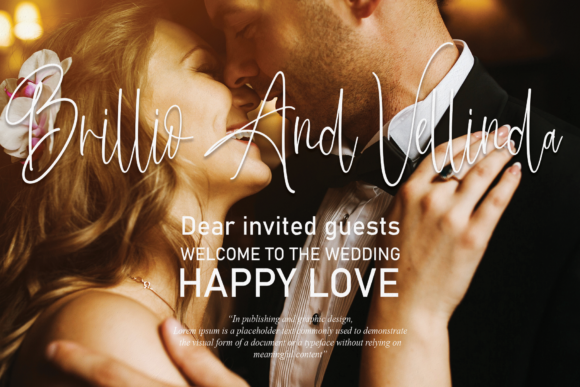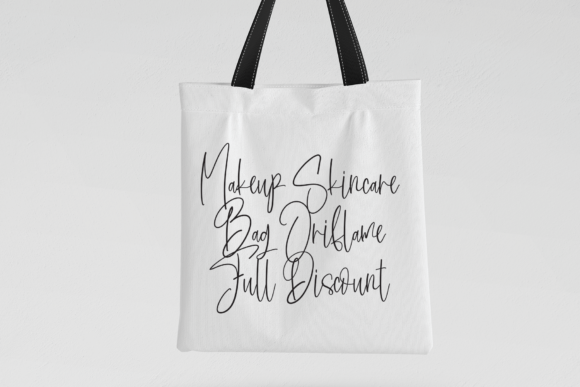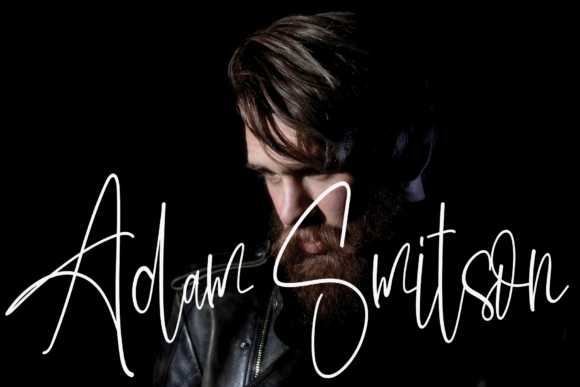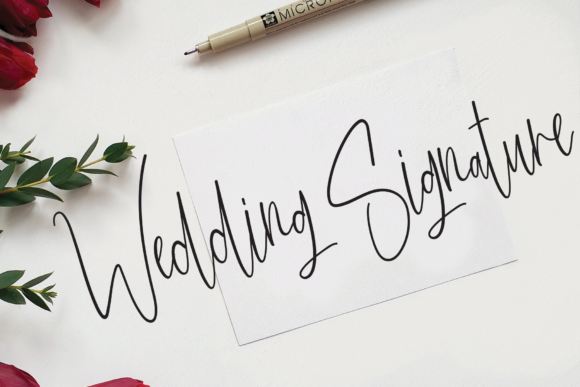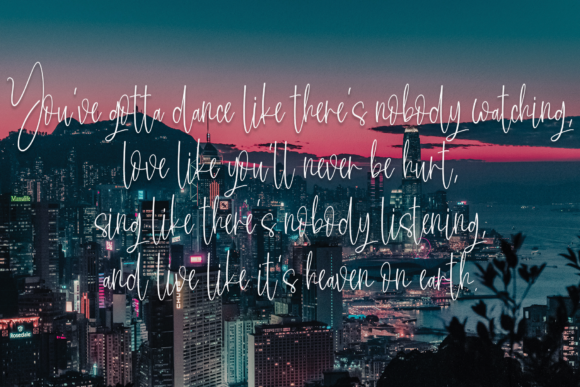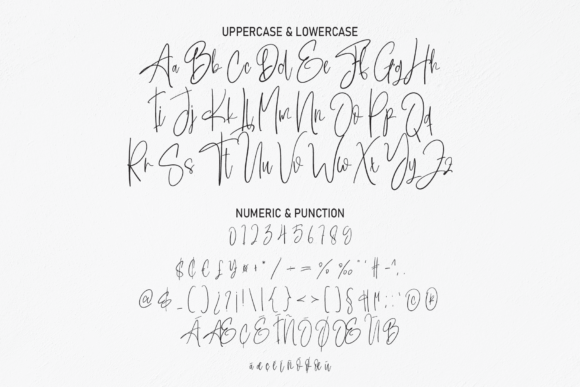
Introduction to Sligature Font
As a designer, you’ve probably experienced that moment when a project comes together, and the final piece feels like a work of art. The text flows effortlessly, the colors pop, and the overall design exudes a sense of sophistication. For me, that moment happened when I stumbled upon the Sligature Font. Its delicate script style and high-quality design made it an instant favorite.
The Sligature Font is more than just a pretty face; it’s a valuable design resource that can elevate any creative project. With its versatility and wide range of applications, from book texts to corporate design, this font is a must-have for any designer looking to add a touch of elegance to their work. And the best part? It’s available for free download, making it an accessible addition to any design arsenal.
Key Features of Sligature Font
- High-quality, professional font suitable for creative projects and designs.
- Features a unique, elegant design with intricate details and ligatures, perfect for adding a touch of sophistication to any design.
Honest Review: Sligature Font
I recently had the chance to work with the Sligature Font, and I must say it’s been a game-changer for my creative projects. As a designer, I’m always on the lookout for high-quality design resources that can elevate my work and make it stand out.
Here are some of the things that I love about the Sligature Font:
- ✨ Unique and creative letterforms that add a touch of personality to my designs
- ✨ High-quality vector graphics that can be scaled up or down without losing any detail
- ✨ Transparent background, making it easy to layer and combine with other design elements
- ⚠️ Limited font styles and weights available, which may not be ideal for more complex design projects
- ⚠️ Not ideal for use in small font sizes, as the letterforms can become distorted
Overall, I’m really impressed with the Sligature Font, and I would highly recommend it to designers looking for a unique and high-quality design resource. With a little creativity and experimentation, I’m sure you’ll be able to unlock its full potential and take your designs to the next level.
Tips for Getting the Most Out of Sligature Font
Use Sligature Font on a transparent background to create a clean and minimalist design. You can also use it in conjunction with other design resources, such as images or graphics, to add visual interest to your project. Experiment with different font sizes and colors to find the perfect look for your creative project.
Sligature Font is perfect for a variety of design projects, including logos, brochures, and social media graphics. It’s also a great resource for designers who need a high-quality, free download font to add to their design arsenal.